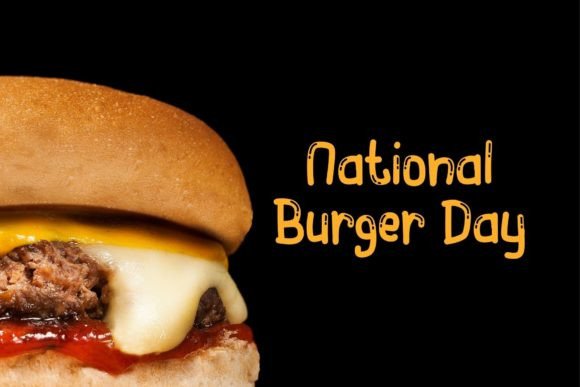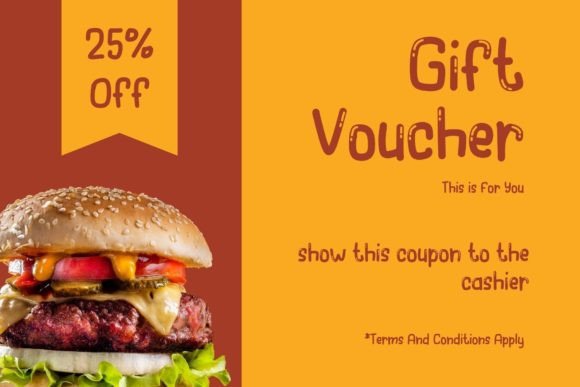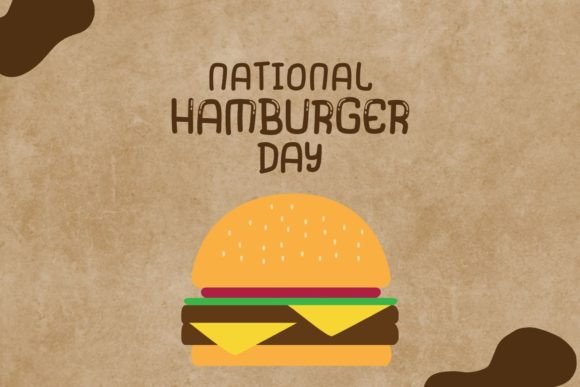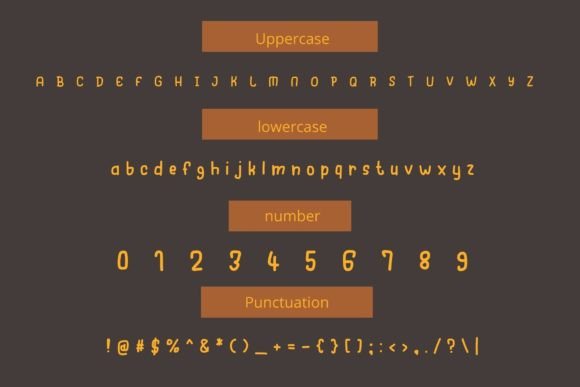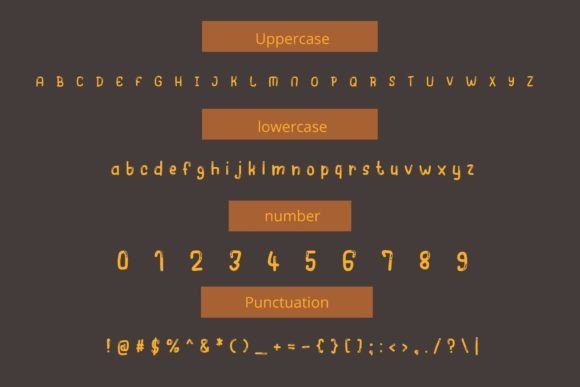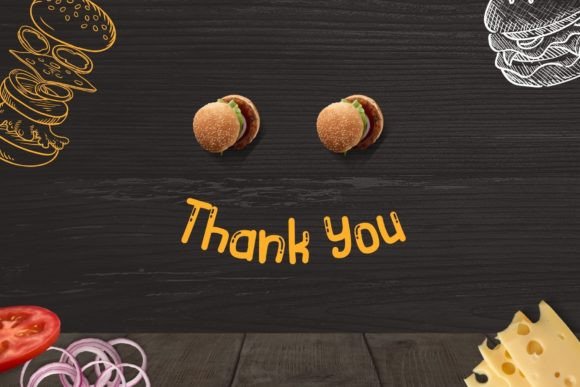
Brono Font: The Ultimate Choice for Creative Projects
Are you looking for a font that embodies playfulness and authenticity? Look no further than Brono Font! This cute handwritten font is perfect for adding a personal touch to your designs, and its versatility makes it suitable for a wide range of projects.
What is Brono Font?
Brono Font is a unique and charming handwritten font that is designed to bring a sense of fun and personality to your designs. Its playful and authentic style makes it perfect for creative projects that require a personal touch. Whether you’re a designer, crafter, or DIY enthusiast, Brono Font is the perfect choice for adding a touch of whimsy to your work.
Uses for Brono Font
Brono Font is incredibly versatile and can be used for a wide range of projects, including:
- Blog Posts: Add a personal touch to your blog posts with Brono Font. Its playful style makes it perfect for lifestyle, fashion, and beauty blogs.
- Logos and Branding: Create a unique and memorable logo for your business with Brono Font. Its authentic style makes it perfect for businesses that want to stand out from the crowd.
- Ads: Make your ads stand out with Brono Font. Its playful style makes it perfect for social media ads, flyers, and brochures.
- Invitations: Create beautiful and unique invitations for special occasions such as weddings, birthdays, and baby showers.
- Greeting Cards: Add a personal touch to your greeting cards with Brono Font. Its playful style makes it perfect for holidays, birthdays, and get-well cards.
- Planners: Create a functional and stylish planner with Brono Font. Its authentic style makes it perfect for daily, weekly, and monthly planners.
- Photo Albums: Add a personal touch to your photo albums with Brono Font. Its playful style makes it perfect for scrapbooking and photojournalism.
- Decorations: Use Brono Font to create beautiful and unique decorations for your home or office. Its authentic style makes it perfect for signs, banners, and wall art.
Why Choose Brono Font?
There are many reasons why Brono Font is the perfect choice for your creative projects. Here are just a few:
- Playful and Authentic: Brono Font embodies playfulness and authenticity, making it perfect for projects that require a personal touch.
- Versatile: Brono Font is incredibly versatile and can be used for a wide range of projects.
- Easy to Read: Brono Font is easy to read, making it perfect for body text and headings.
- Unique: Brono Font is a unique and charming font that will make your designs stand out from the crowd.
Here are a few tips for using Brono Font:
- Use it as a headline font: Brono Font is perfect for headlines and titles. Its playful style makes it perfect for grabbing attention.
- Use it as a body font: Brono Font is also easy to read, making it perfect for body text.
- Experiment with different colors: Brono Font looks great in a variety of colors. Experiment with different colors to find the perfect look for your design.
Brono Font is a unique and charming handwritten font that is perfect for adding a personal touch to your designs. Its playful and authentic style makes it suitable for a wide range of projects, from blog posts and logos to invitations and decorations. With its ease of use and versatility, Brono Font is the perfect choice for designers, crafters, and DIY enthusiasts.